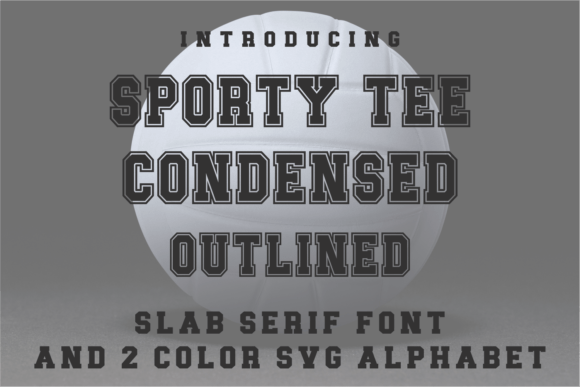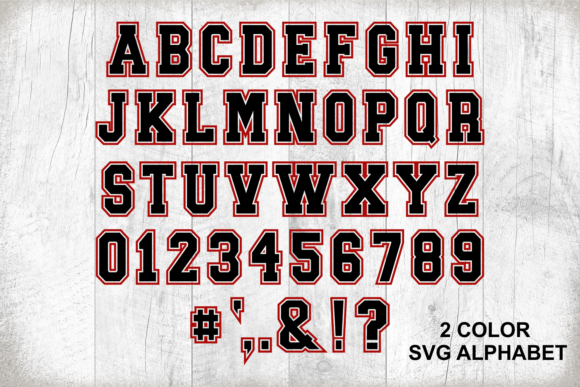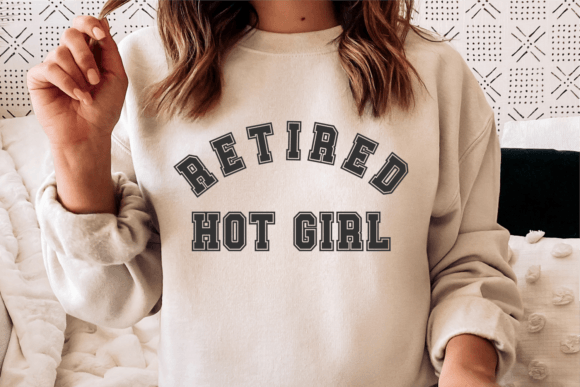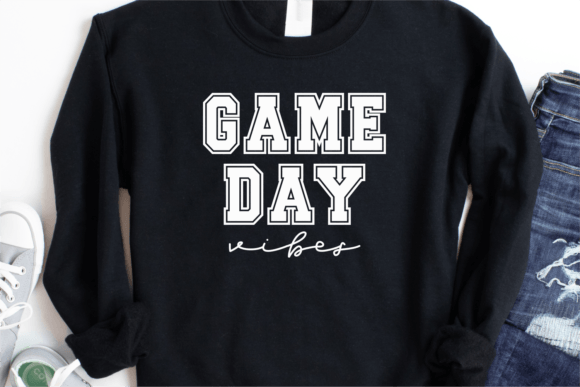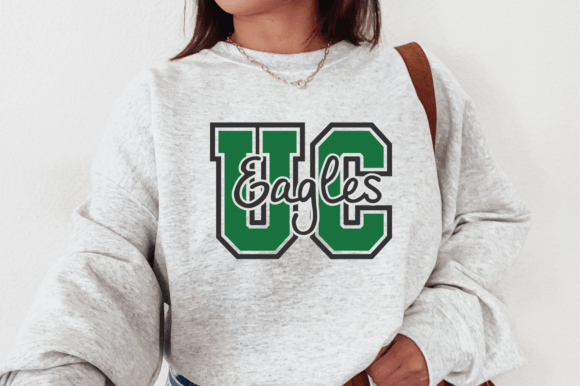
Sporty Tee Condensed Outlined is a tall sport font with an outline that also comes with a two-color SVG alphabet. It looks powerful and is created to add a vibrant touch to your sport-inspired designs. Suitable for sports design, team, jersey, league, movie, documenter, film, logo, poster, game, book cover, headlines, title, and many more projects.
Sporty Tee Condensed Outlined Font